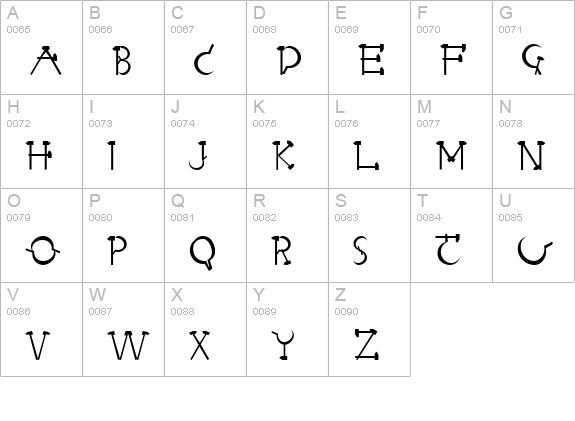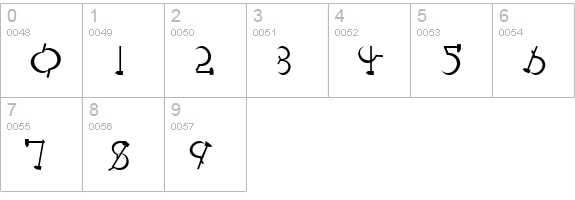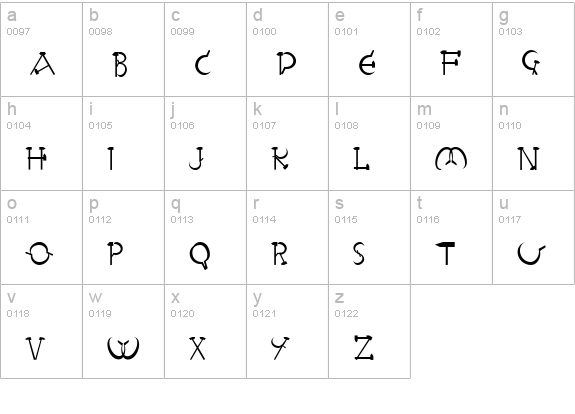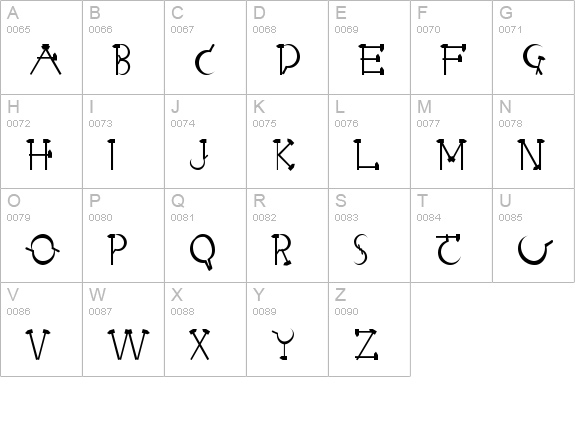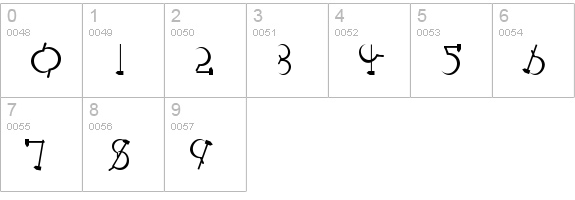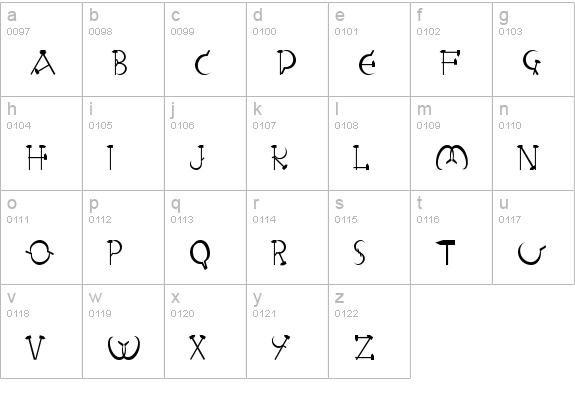
RedLetter Font Details
RedLetter font is a stunning typeface that exudes elegance and sophistication. With its unique blend of bold and thin strokes, this font is perfect for creating eye-catching designs that demand attention. The sleek and modern letterforms of RedLetter font make it a versatile choice for a wide range of design projects, from branding and advertising to editorial layouts and website design. What sets RedLetter font apart is not only its impeccable design but also the fact that it is available for free. Yes, you read that right! RedLetter font can be downloaded at no cost from FontsMarket.com, a trusted source for high-quality fonts. This means that designers, creatives, and enthusiasts alike can enjoy the beauty and functionality of RedLetter font without having to spend a penny. Whether you are a professional graphic designer looking for a new addition to your font library or a hobbyist experimenting with typography, RedLetter font is a must-have. Its clean and legible letterforms ensure that your message will be conveyed with utmost clarity, while its distinct style adds a touch of sophistication to any design. So why wait? Head over to FontsMarket.com and download RedLetter font today. Whether you need it for personal or commercial use, this font is ready to elevate your designs to new heights. With its freely available download and exceptional design, RedLetter font is truly a gem in the world of typography.